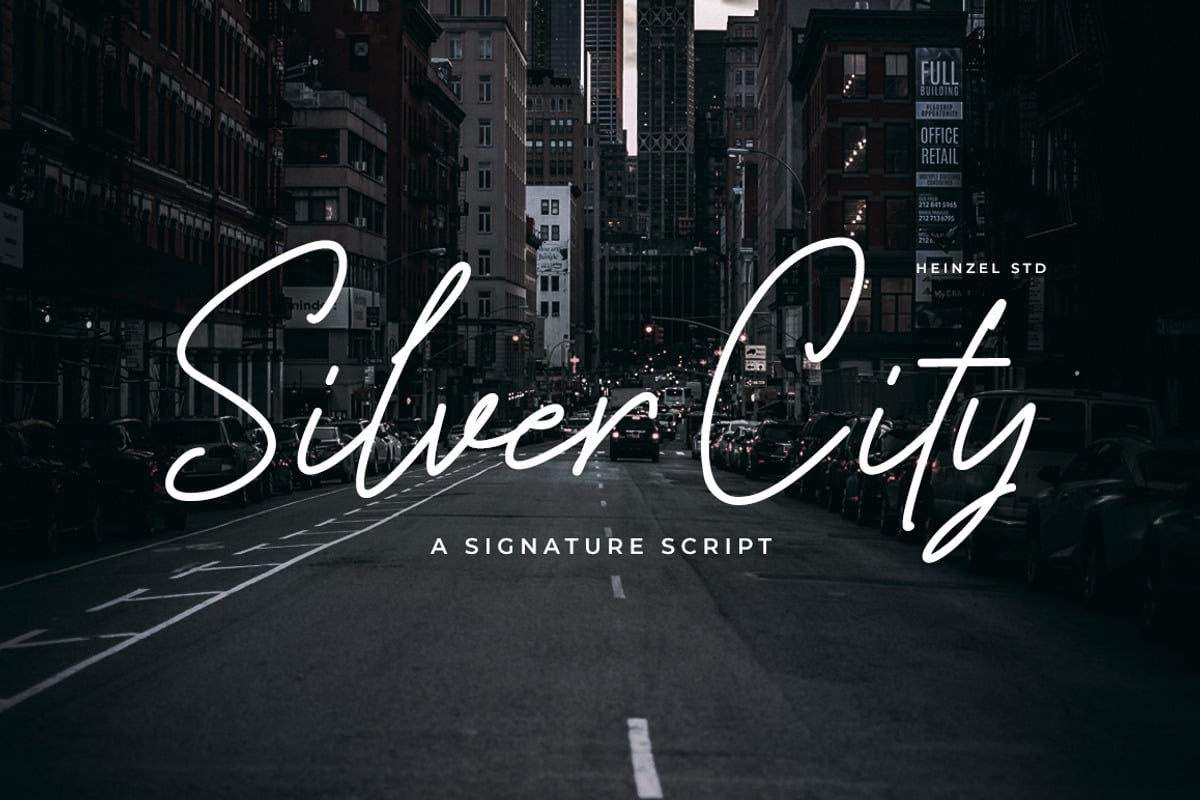
Silver City - Signature Font
Silver City is the elegant signature font that makes every word feel personally signed and authentically crafted.
Fall in love with its genuine handwritten feel and use it to elevate your creative projects with effortless sophistication. Whether you're designing for weddings, lifestyle brands, or social media, Silver City brings a warm, personal touch to every layout.
Perfect for:
- Wedding invitations and stationery
- Greeting cards and gifts
- Social media graphics and branding
- Photography logos and watermarks